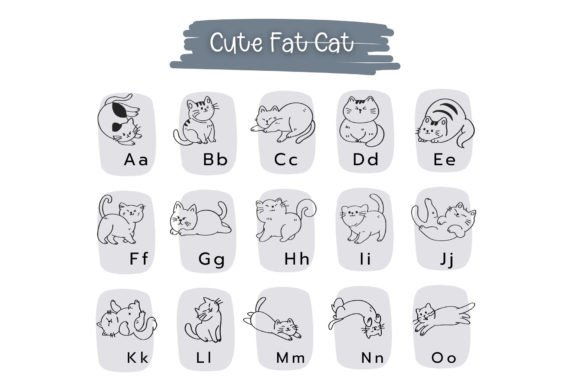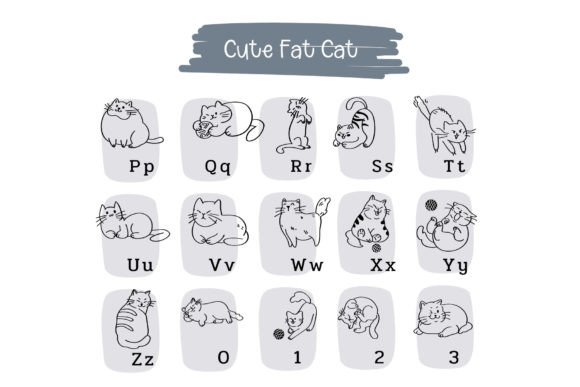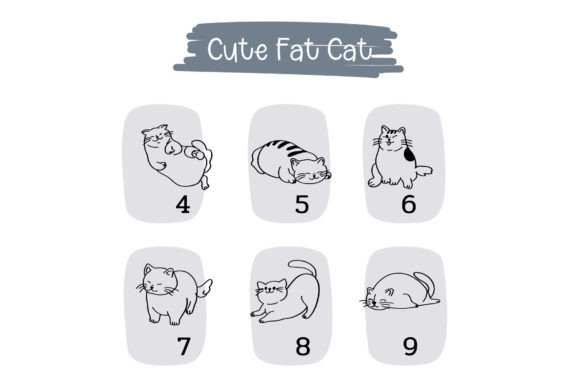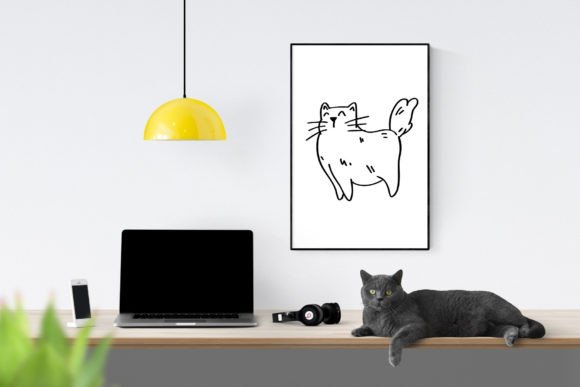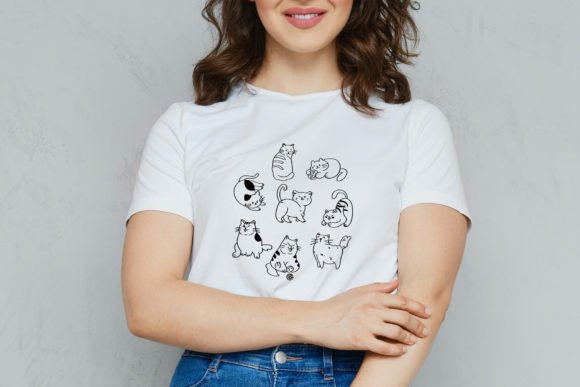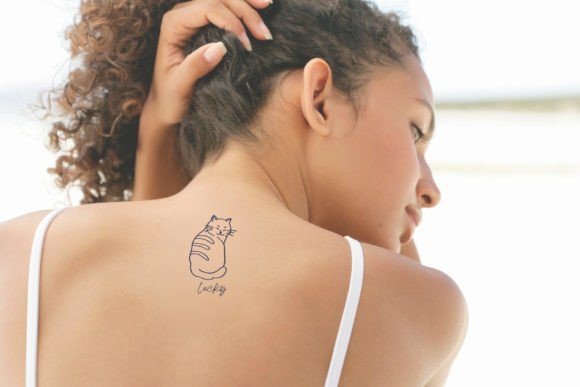
The Purrfect Font: A Deep Dive into Cute Fat Cat Font
I’ll never forget the time I was working on a design project for a children’s book, and I needed a font that would capture the playful and whimsical tone of the story. As I scrolled through font after font, nothing seemed quite right – until I stumbled upon Cute Fat Cat Font. 🐱✨
This fun font is made up of adorable cat pictures instead of regular letters, and I was immediately smitten. Each character is a different cute cat drawing, making it perfect for adding a playful touch to designs. In this article, I’ll share my experience with Cute Fat Cat Font, including what I love about it, some quirks to be aware of, and practical tips on how to use it in your designs.
- ✨ Unique and playful design that’s sure to bring a smile to anyone’s face
- ✅ Adorable cat illustrations that are perfect for kid-friendly projects or cat lovers
- ✅ Easy to use and pairs well with a variety of design styles
While Cute Fat Cat Font is a delightful addition to any design, there are a few things to keep in mind: 🤔
- ⚠️ The font may not be suitable for formal or professional projects, as it can come across as too playful
- ⚠️ Some characters may not be easily readable, especially for those with vision impairments
The Backstory Behind Cute Fat Cat Font
Cute Fat Cat Font was designed by a freelance designer who wanted to create a fun and playful font that would bring joy to designers and crafters. The designer, an animal lover and cat enthusiast, drew inspiration from their own feline friends and created a font that’s both adorable and functional.